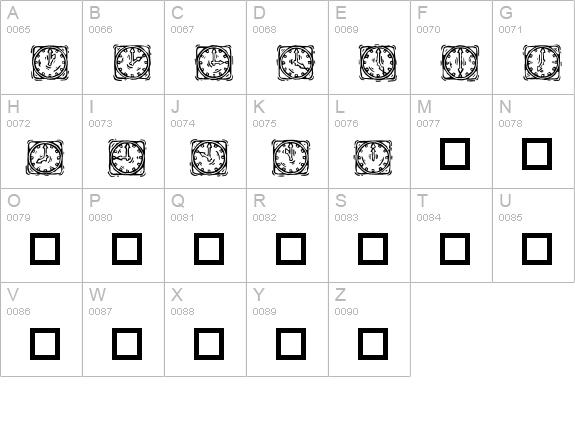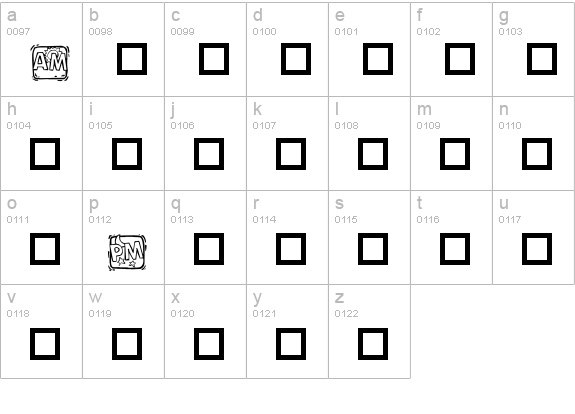
KR Lotsa Time Dings Font Details
The KR Lotsa Time Dings font is a whimsical and playful typeface that is perfect for adding a touch of fun and creativity to your designs. With its unique and quirky characters, this font is sure to make your text stand out and capture attention. Whether you're working on a poster, greeting card, or logo, KR Lotsa Time Dings will add a cheerful and lighthearted feel to your project. This font is freely available to download at FontsMarket.com, making it easy for you to access and use in your design projects. So go ahead and unleash your creativity with the delightful and charming KR Lotsa Time Dings font today!